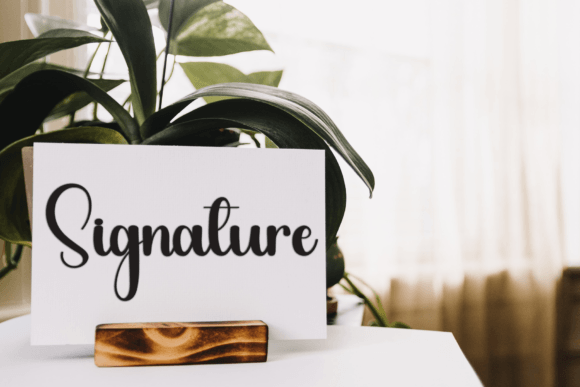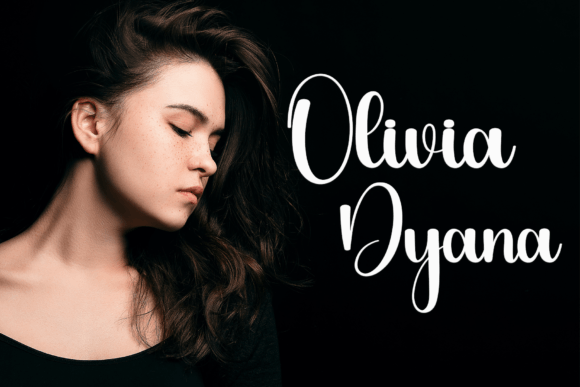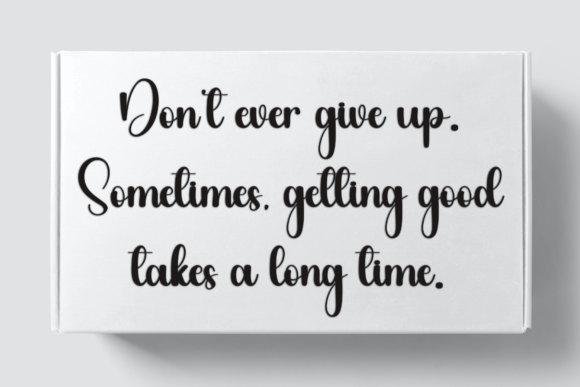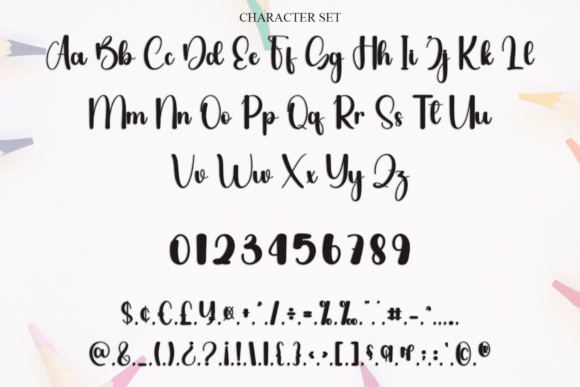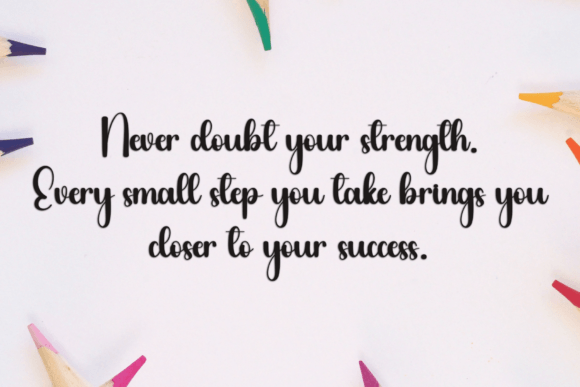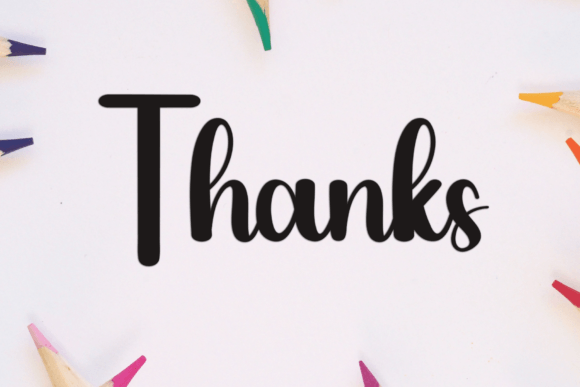
Introduction to Simple Calligraphy Font
Simple Calligraphy is a flowing handwritten font that marries grace with expressiveness.
Each meticulously crafted character exudes an artful elegance, capturing the essence of traditional calligraphy Ideal for projects seeking a timeless and sophisticated touch, Simple Calligraphy adds a refined, handwritten flourish to your creative endeavors.
Key Features of Simple Calligraphy Font